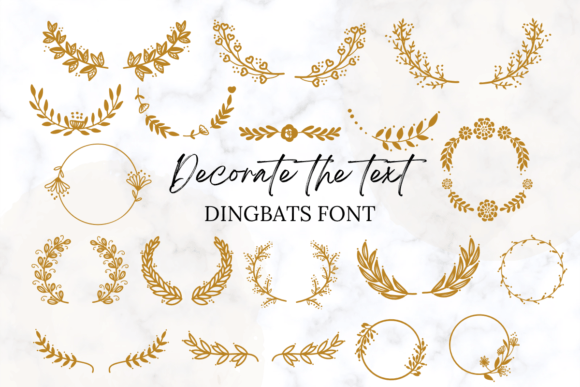
Decorate the Text Font: Elevate Your Creative Projects with a Sketchy Twist
Are you looking for a unique and creative way to add a personal touch to your projects? Look no further than the Decorate The Text font, a dingbat font with a charming sketch style theme. This versatile font is perfect for enhancing a wide range of creative projects, from wedding invitations and DIY crafts to decorations, logos, and beyond.
What is Decorate The Text Font?
Decorate The Text is a dingbat font that features a delightful sketch style theme. Dingbat fonts are a type of font that uses symbols and glyphs instead of traditional letters and numbers. This font is specifically designed to add a touch of whimsy and personality to your projects. With its hand-drawn, sketchy feel, Decorate The Text is perfect for adding a creative and artistic touch to your designs.
Features of Decorate The Text Font
So, what makes Decorate The Text font so special? Here are just a few of its key features:
- Sketch style theme: The font features a charming sketch style theme that adds a touch of personality to your projects.
- Dingbat font: The font uses symbols and glyphs instead of traditional letters and numbers, making it perfect for adding a creative twist to your designs.
- Hand-drawn feel: The font has a hand-drawn feel that gives it a unique and artistic touch.
- Versatile: The font is perfect for a wide range of creative projects, from wedding invitations and DIY crafts to decorations, logos, and more.
Uses for Decorate The Text Font
So, what can you use Decorate The Text font for? The possibilities are endless! Here are just a few ideas to get you started:
Wedding Invitations
Make your wedding invitations truly special with Decorate The Text font. The font’s sketchy theme and hand-drawn feel make it perfect for adding a romantic and whimsical touch to your wedding stationery.
DIY Crafts
Take your DIY crafts to the next level with Decorate The Text font. The font is perfect for adding a personal touch to your craft projects, from scrapbooking and card making to woodworking and home decor.
Decorations
Add a touch of personality to your decorations with Decorate The Text font. The font is perfect for creating custom signs, banners, and other decorative items for parties, events, and everyday decor.
Logos and Branding
Make your logo and branding truly stand out with Decorate The Text font. The font’s unique and artistic feel make it perfect for businesses and brands looking to add a creative touch to their marketing materials.
Tips for Using Decorate The Text Font
Here are a few tips for getting the most out of Decorate The Text font:
- Experiment with different sizes and colors: Don’t be afraid to try out different sizes and colors with Decorate The Text font. The font looks great in a variety of sizes and colors, so feel free to get creative!
- Mix and match with other fonts: Decorate The Text font pairs well with a variety of other fonts, so don’t be afraid to mix and match. Try pairing it with a bold font for a striking contrast, or with a script font for a more elegant look.
- Use it for headings and titles: Decorate The Text font is perfect for headings and titles, where its unique and artistic feel can really shine.
In conclusion, Decorate The Text font is a versatile and creative dingbat font with a charming sketch style theme. With its hand-drawn feel and artistic touch, it’s perfect for adding a personal touch to a wide range of creative projects, from wedding invitations and DIY crafts to decorations, logos, and more. Whether you’re a designer, DIY enthusiast, or simply looking for a unique way to add some personality to your projects, Decorate The Text font is a great choice.
- Font type: Dingbat font
- Font style: Sketch style theme